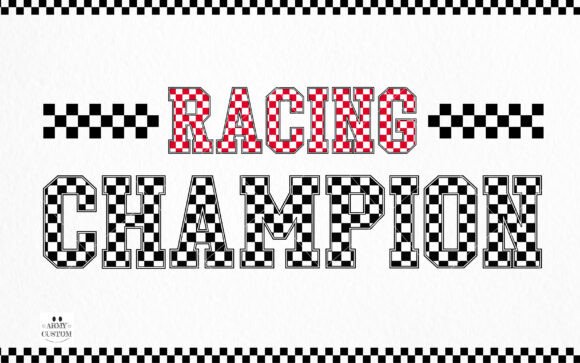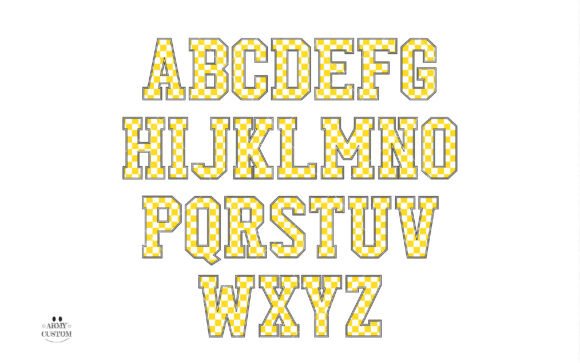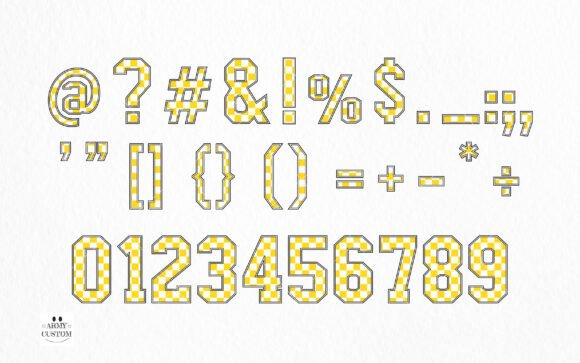
Checkered Font
Introducing “Checkered Font pattern,” a font that captures the exhilarating spirit of the race, fondly referred to as a Racing flag style. Developed with the adrenaline rush of crossing the line first in mind, font manifests the thrill of victory through its design. This captivating design simulates the unmistakable pattern of a racing flag, immediately evoking visuals of speed, triumph, and rivalry. Suited for those who strive for gusto and vibrant energy in their designs, is a testimony to the fast-paced world of competitive sports.The black version of this font is compatible with Cricut Design Space and other cutting machines.Note! The color version of this font is only compatible with certain design programs incl. PhotoShop, Illustrator, Silhouette, and Inkscape. The OTF and/or TTF files of the color version are not compatible with Cricut. For more information on how to use this type of font please check our Ultimate Font Guide .